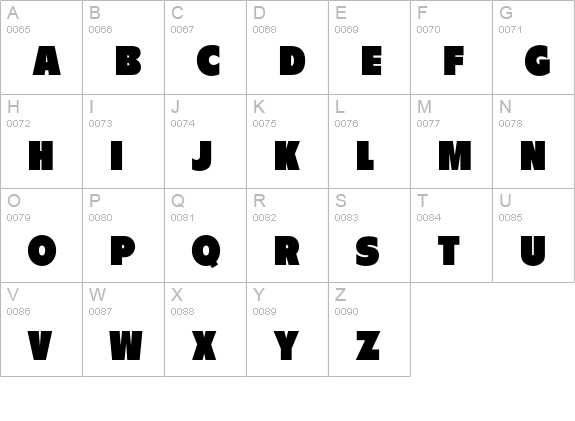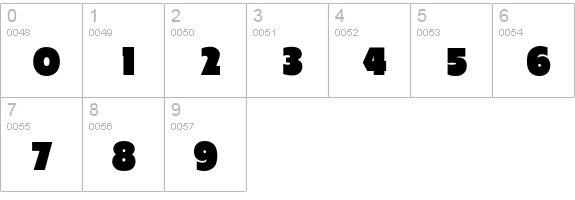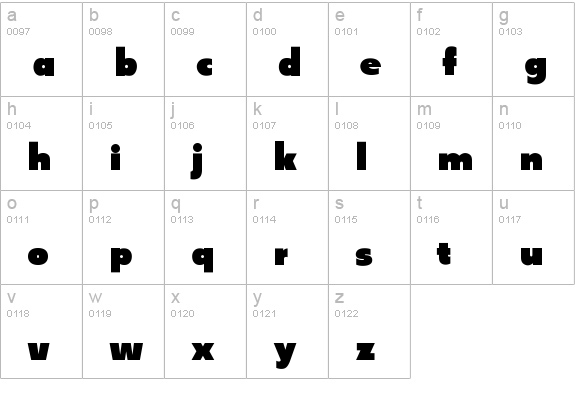
Berlin Font Details
Berlin font is a modern and stylish typeface that exudes sophistication and elegance. With clean lines and a sleek design, Berlin font is perfect for adding a touch of class to any project. This versatile font can be used for a variety of design purposes, from branding to marketing materials. One of the best things about Berlin font is that it is completely free to use. You can download it easily at FontsMarket.com and start using it in your projects right away. Whether you are a designer looking for a new font to add to your collection or a business owner in need of a fresh look for your branding, Berlin font is the perfect choice. Don't miss out on this fantastic opportunity to enhance your designs with this beautiful and free font.